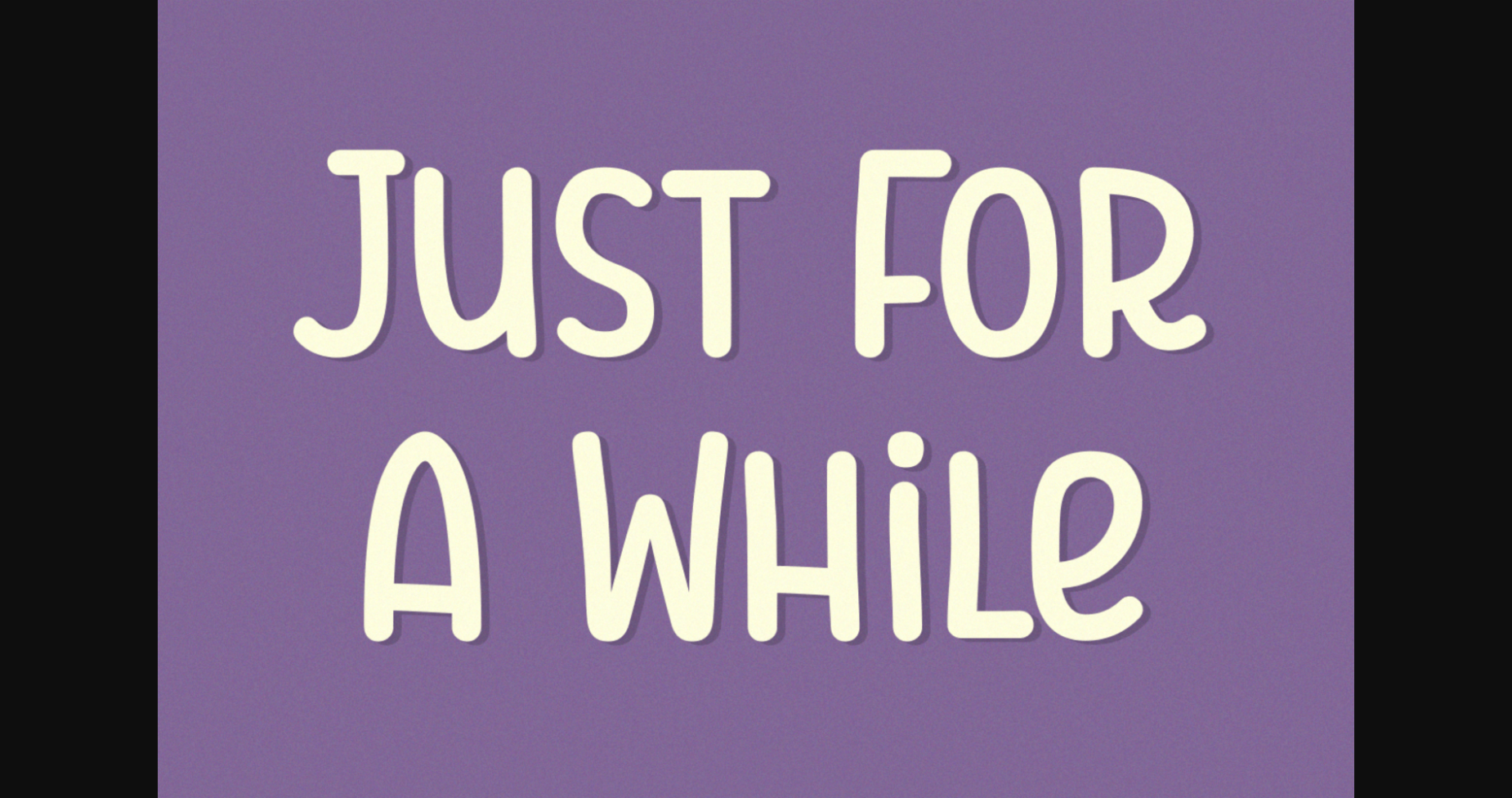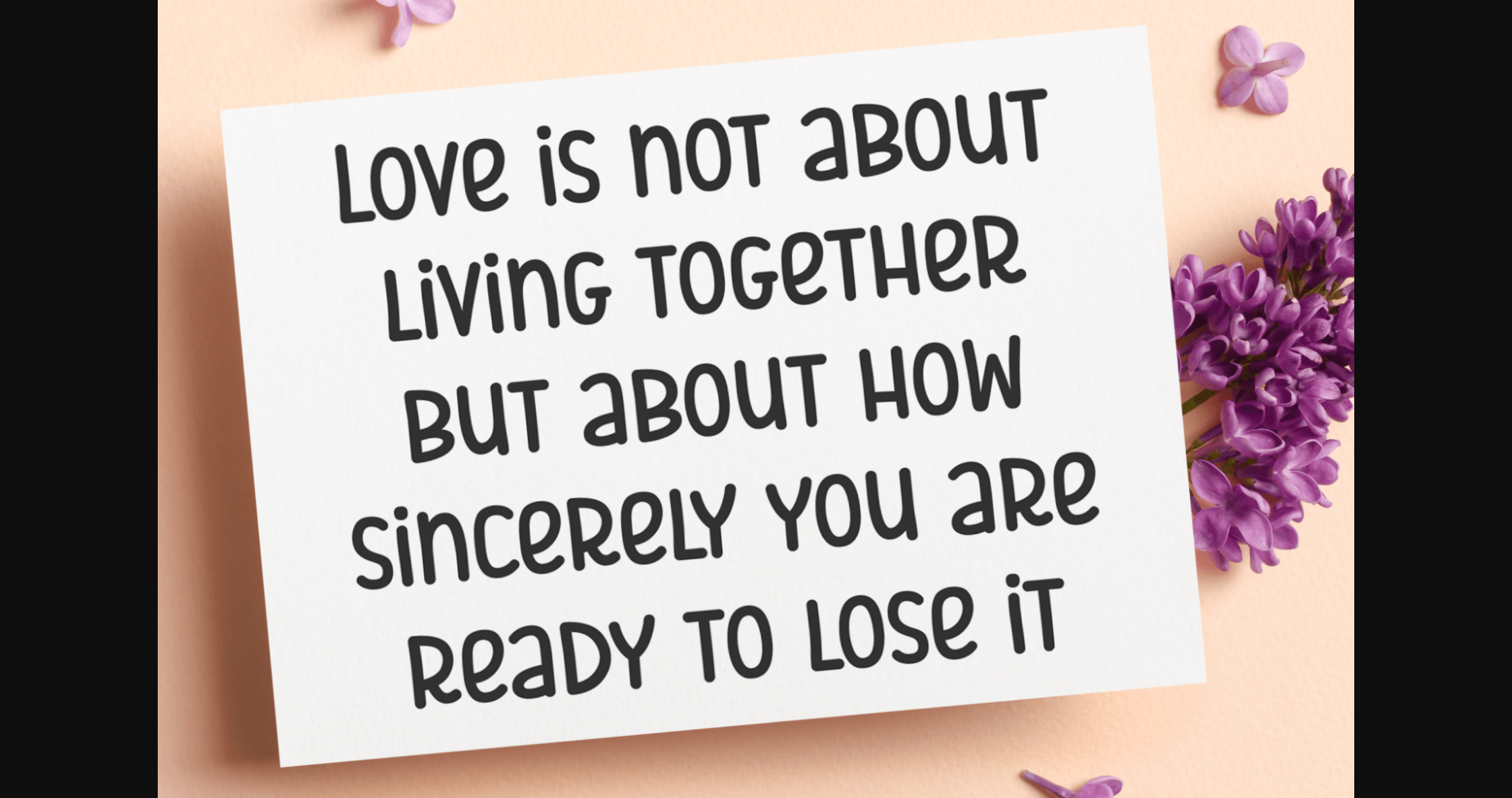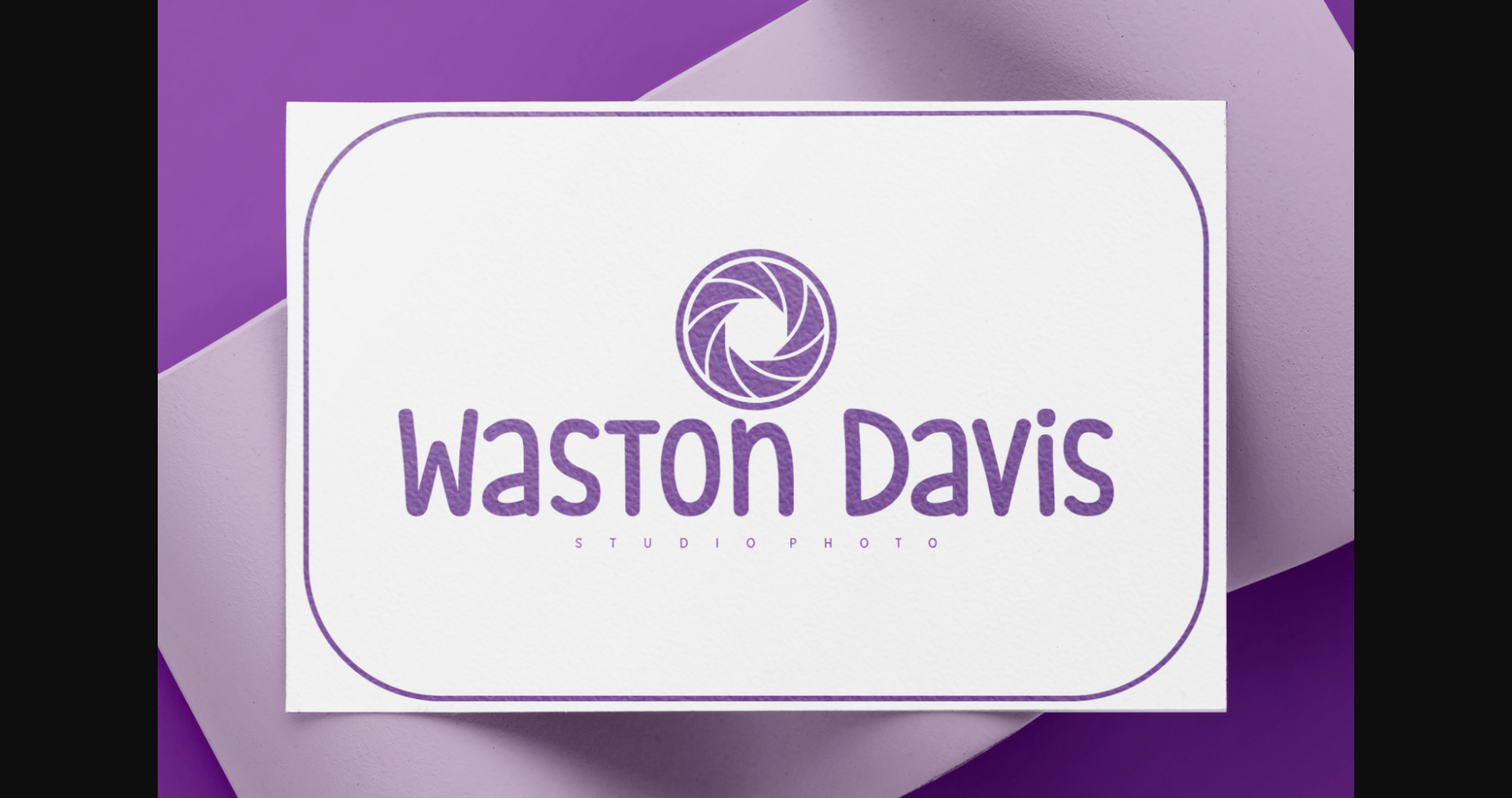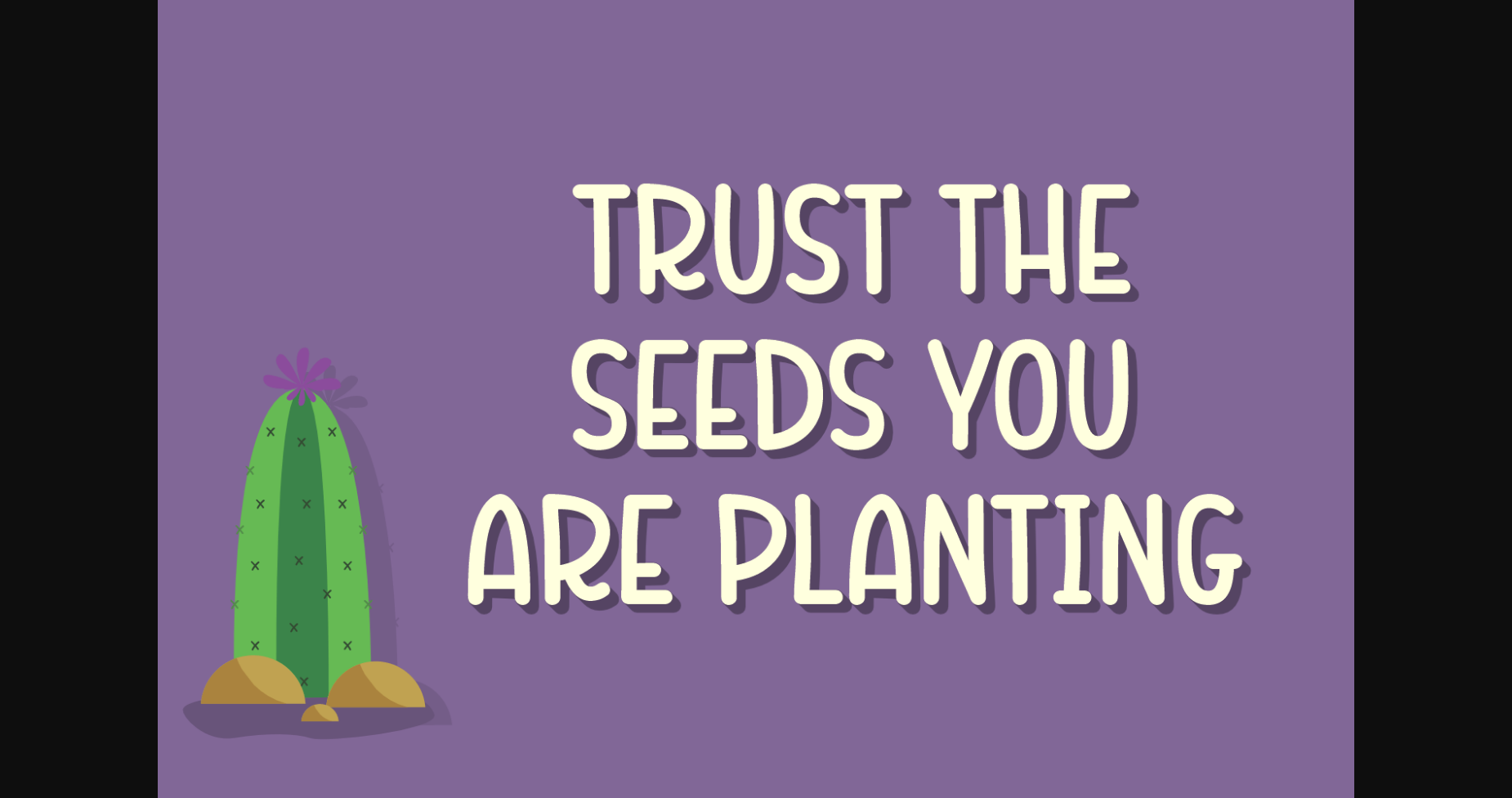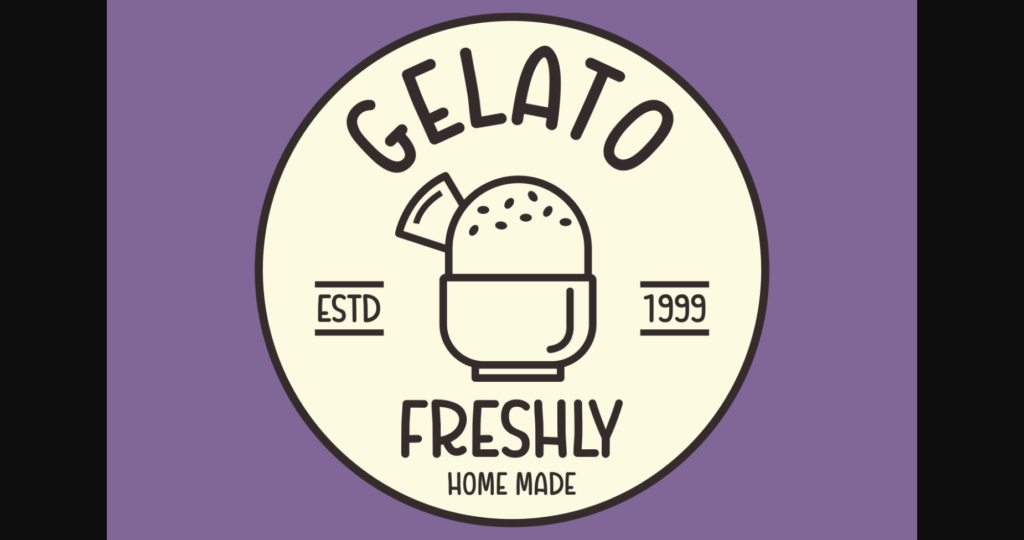
Just for a While Font
About Just for a While Font
Just for a While is a fun and modern sans serif font. With bold and chic characters, this typeface is suitable for various design projects – branding, advertising, sublimation projects, fabric prints, and many more.